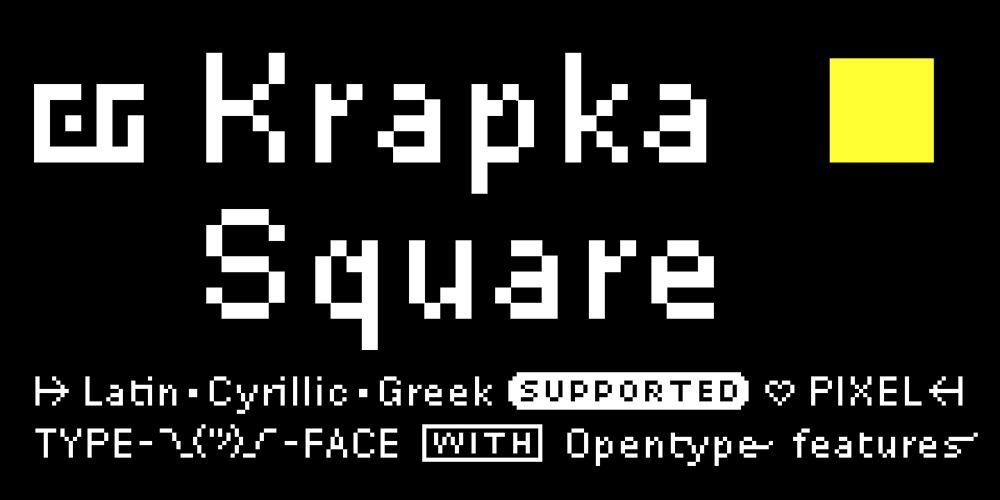
DR Krapka Square Font Family was designed by Dmitry Rastvortsev and published by Dmitry Rastvortsev. DR Krapka Square contains 36 styles and family package options. In the DR Krapka Square typefamily, the pixel has a square shape. The font supports OpenType features and contains small capitals, ligatures, oldstyle figures, terminal forms, historical forms, stylistic sets. The dingbats, arrows, emoji are also present. For small texts, it is recommended to use DR Krapka Square-FontSize10px in the font size 10 px.DR Krapka Square typefamily supported European languages based on Latin, Cyrillic and Greek scripts. If you want to use fonts with a different shape of pixels, there are also typefaces from DR Krapka family: DR Krapka Round, DR Krapka Rhombus.